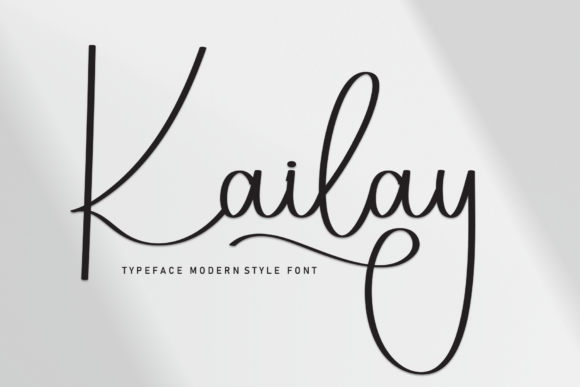
Welcome to the realm of Kailay Font, a script font family that exudes charm and flair like no other. Immerse yourself in the world of Kailay Font, a font family that mirrors the beauty of handwritten elegance. It's not just a font; it's an art form meticulously crafted to bring life to your creative visions.
Glide through the collection and discover the versatility of Kailay Font. With a delicate touch and graceful curves, it transports you to a world of beauty and charm. Kailay Font offers you a palette of styles, from the whimsical to the classic, allowing you to unleash your creativity like never before.
Picture your words adorned in the splendor of Kailay Font. Imagine your wall displays radiating warmth and elegance, your wedding invitations exuding a romantic charm that will leave your guests awestruck, and your social media posts showcasing your unique style with captivating beauty.
Kailay Font is your ideal partner for creating logos that leave a lasting impression, advertisements that draw attention effortlessly, and product packaging that captivates customers' hearts. Its versatility extends to product designs, labels, photography, watermarks, invitations, and stationery, adding a touch of timeless sophistication to every project you undertake.
But Kailay Font isn't just about aesthetics; it's about evoking emotions and creating connections. Its elegant strokes weave a tapestry of stories, transporting your audience to a world of imagination and wonder. Let Kailay Font be your muse, your creative spark, as you craft designs that resonate with the heart and leave an unforgettable mark.